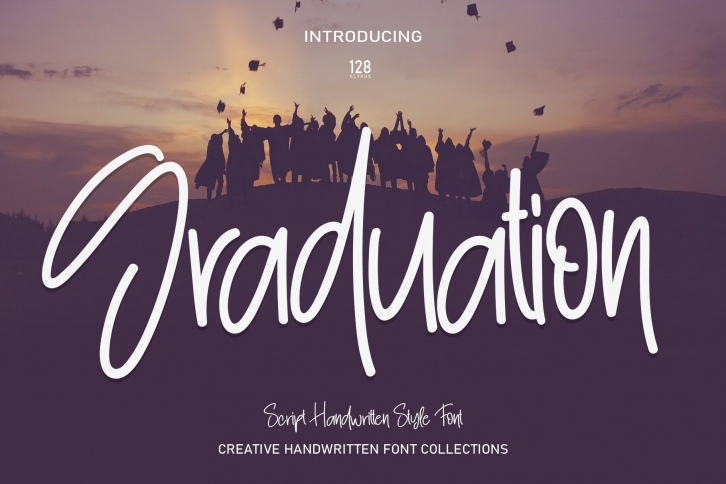
Graduation is a beautiful font that was designed by Scratchones. It's a great choice for designers and creatives who need such a font. It was released on June 1, 2022 and the file size is 21.63 MB. Graduation may give a more youthful, expressive and casual look to your project. It is a very beautiful, refined, elegant, and high-quality font.